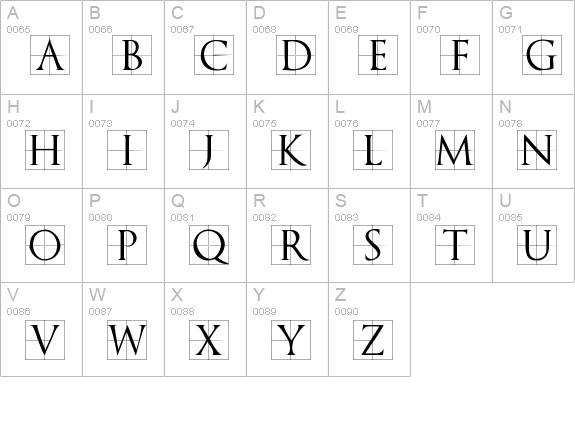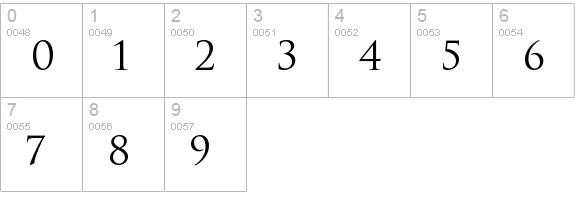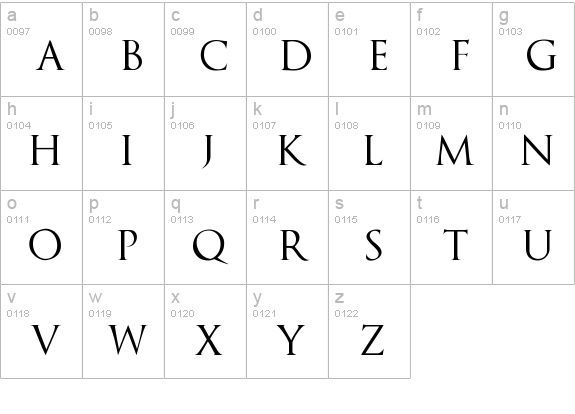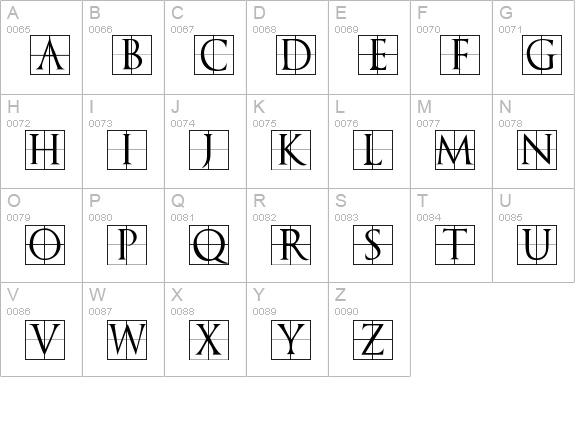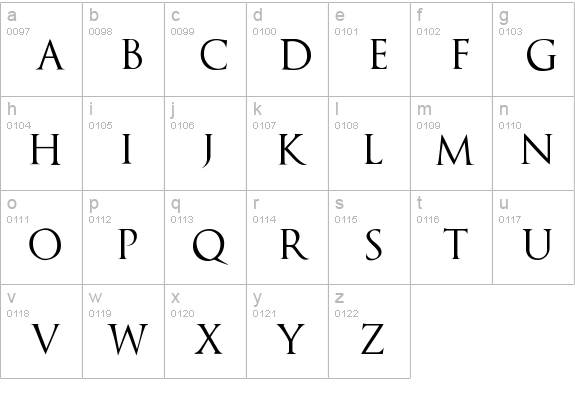
TrajanusBricks Font Details
Introducing TrajanusBricks, a captivating and versatile font that combines the timeless elegance of the Trajanus typeface with a modern twist. This unique font is expertly crafted to bring a sense of strength and sophistication to any design project. Designed with meticulous attention to detail, TrajanusBricks boasts a stunning array of meticulously handcrafted characters that seamlessly blend together to create a visually striking appearance. Each letter is meticulously carved, as if chiseled from stone, with sharp edges and intricate details that evoke a sense of grandeur and craftsmanship. Whether you're designing a logo, a poster, a website, or any other creative endeavor, TrajanusBricks offers endless possibilities. Its bold and commanding presence commands attention, making it the perfect choice for headlines, titles, and any text that needs to make a bold statement. What sets TrajanusBricks apart is not only its exceptional design, but also its accessibility. We believe that great design should be available to everyone, which is why we are proud to offer this remarkable font completely free of charge. Yes, you read that right, TrajanusBricks is freely available to download at FontsMarket.com. So, whether you're a professional designer or an aspiring creative, you can now add the timeless beauty and artistic flair of TrajanusBricks to your projects without any cost. With just a few clicks, you can enhance your designs with the elegance and impact that only TrajanusBricks can provide. Don't miss out on this incredible opportunity to elevate your designs and make a lasting impression. Download TrajanusBricks today and unlock a world of design possibilities, all at your fingertips.